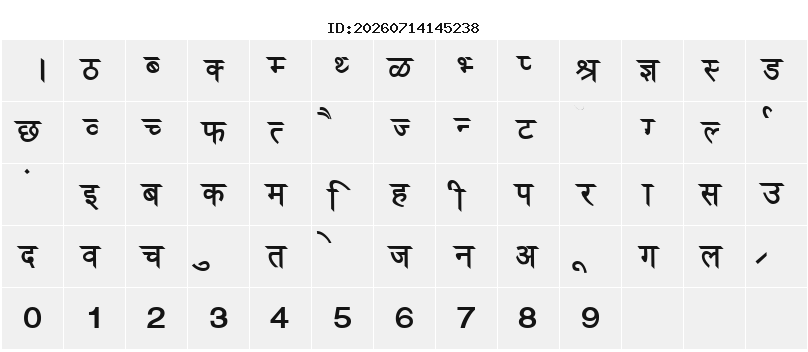
Janmeja2000H Preview
• Font Name: Janmeja2000H
• Full Font Name: Janmeja2000H
• PostScript Name: Janmeja2000H
About Janmeja2000H.ttf
Janmeja2000H.ttf is a modern, elegant sans-serif font designed for ultimate readability and visual harmony. Perfect for branding, headlines, web design, and print materials.